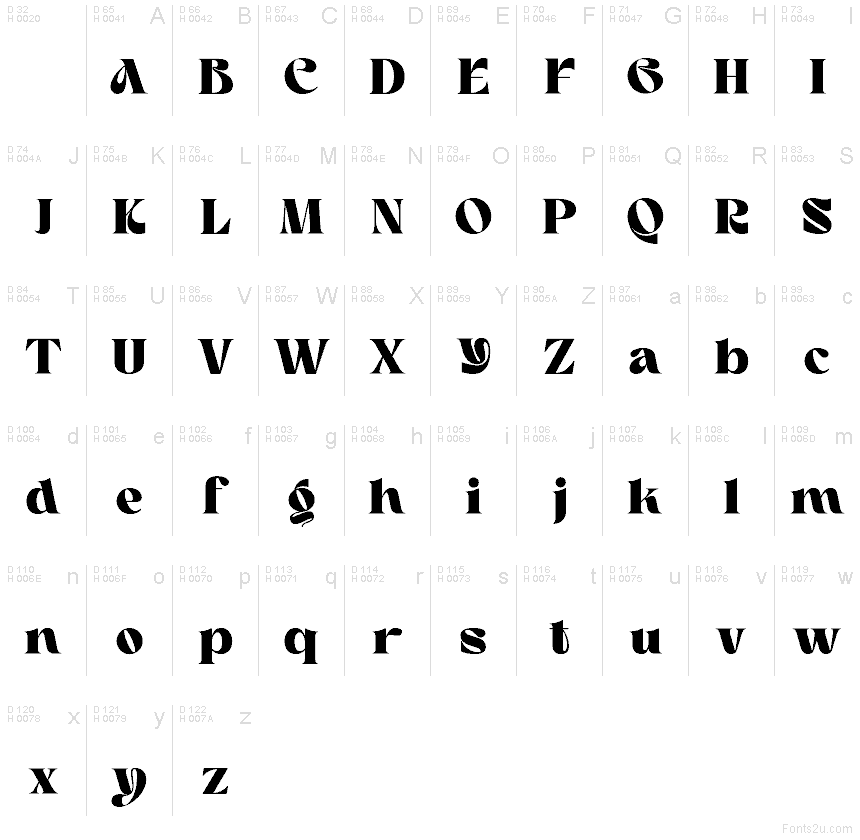
AnthyDEMO-ExtraBold
Anthy ExtraBold font by Dharmas Studio is a bold, vintage display typeface. The elegant dramatic style presents modern serif influences with expressive forms featuring eye-catching curves and angles. Capital letters dominate Anthy as the important elements that make its theatrical flair and stylish look possible.